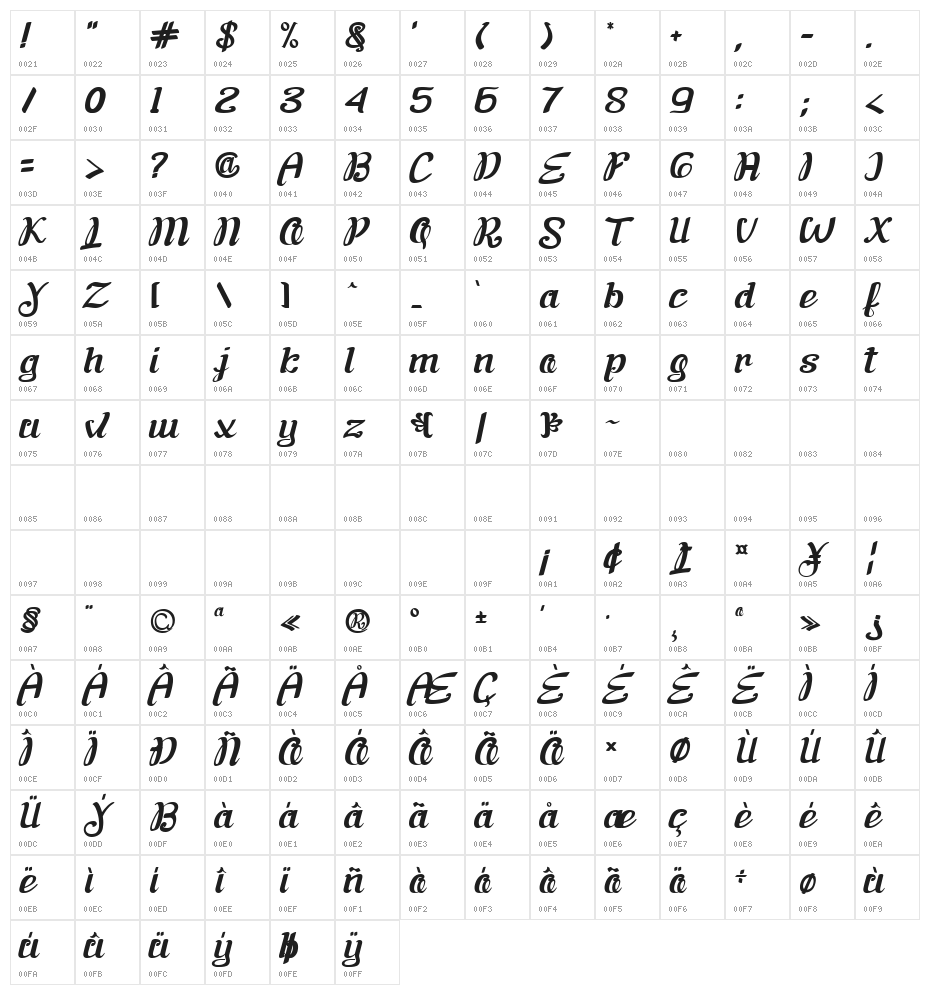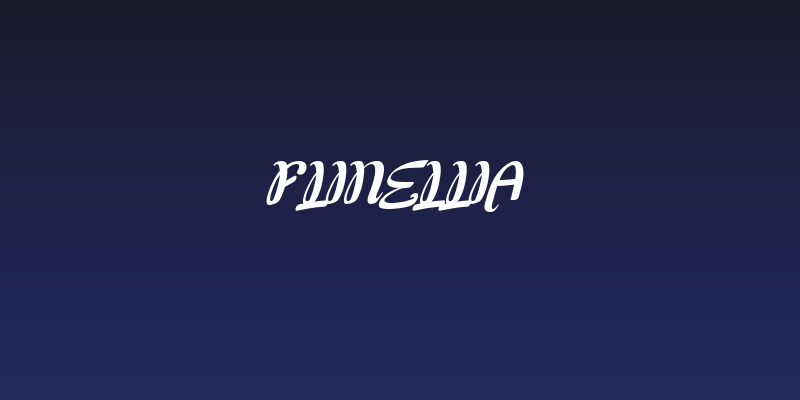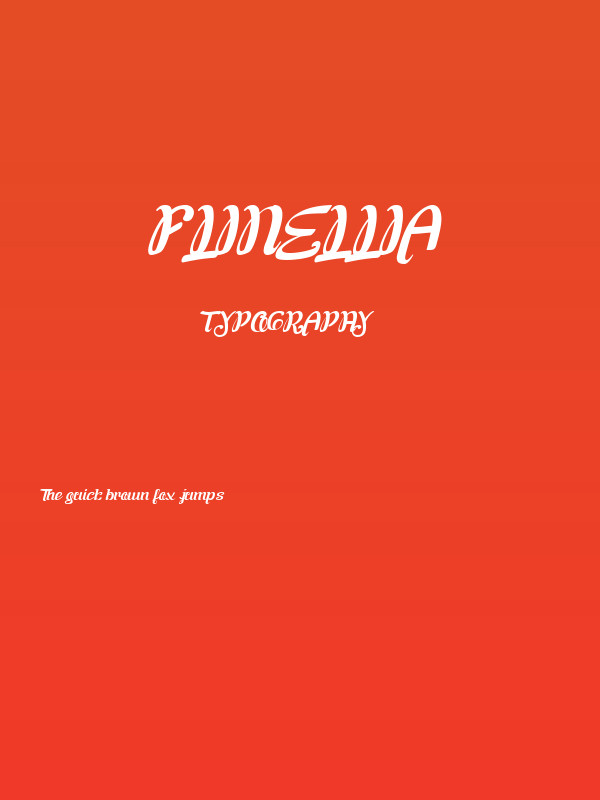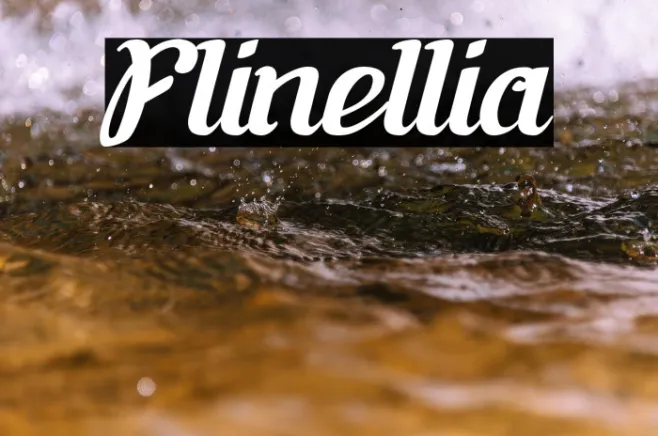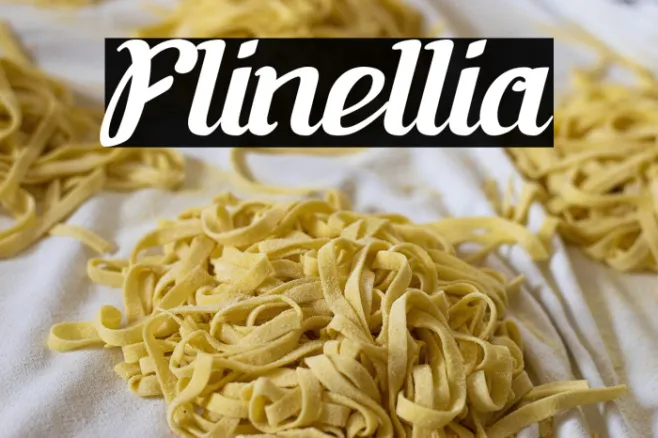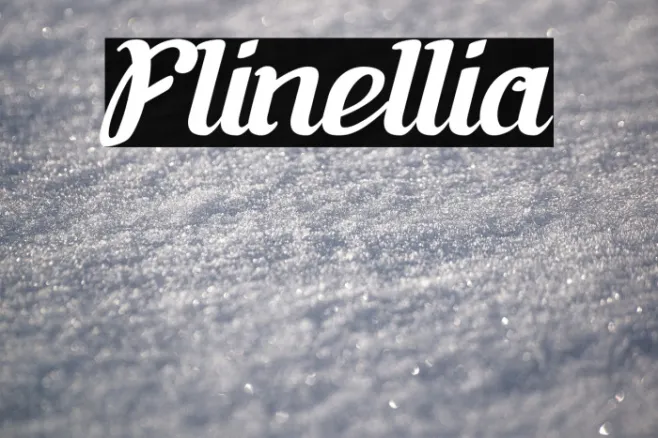
Flinellia Font
Flinellia Description
This font features a bold and flowing script style, characterized by its elegant and cursive letterforms. The uppercase letters are particularly ornate, with sweeping curves and flourishes that give a sense of movement and grace. The lowercase letters maintain a consistent style, with smooth connections between characters that enhance readability while preserving the decorative nature. Numbers and special characters are designed to match the overall aesthetic, ensuring a cohesive look across all text elements. The font's bold weight and high contrast between thick and thin strokes make it stand out, ideal for creating a striking visual impact.